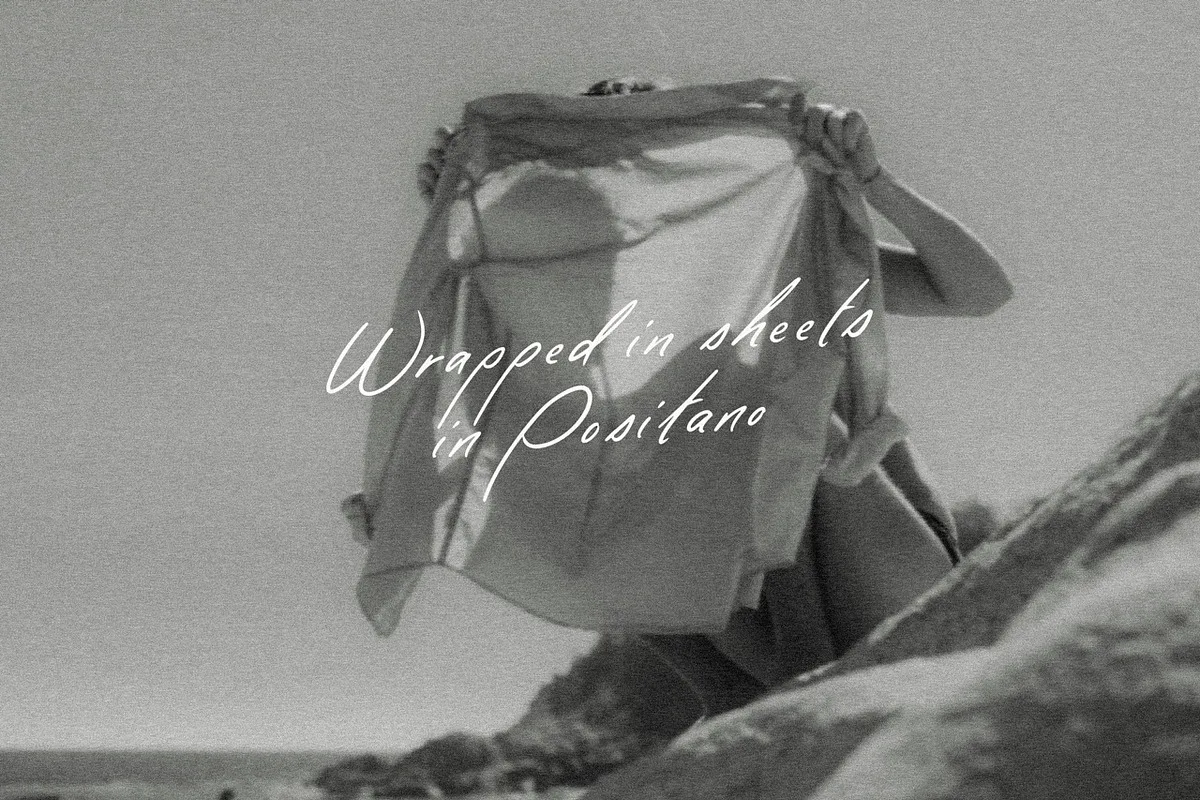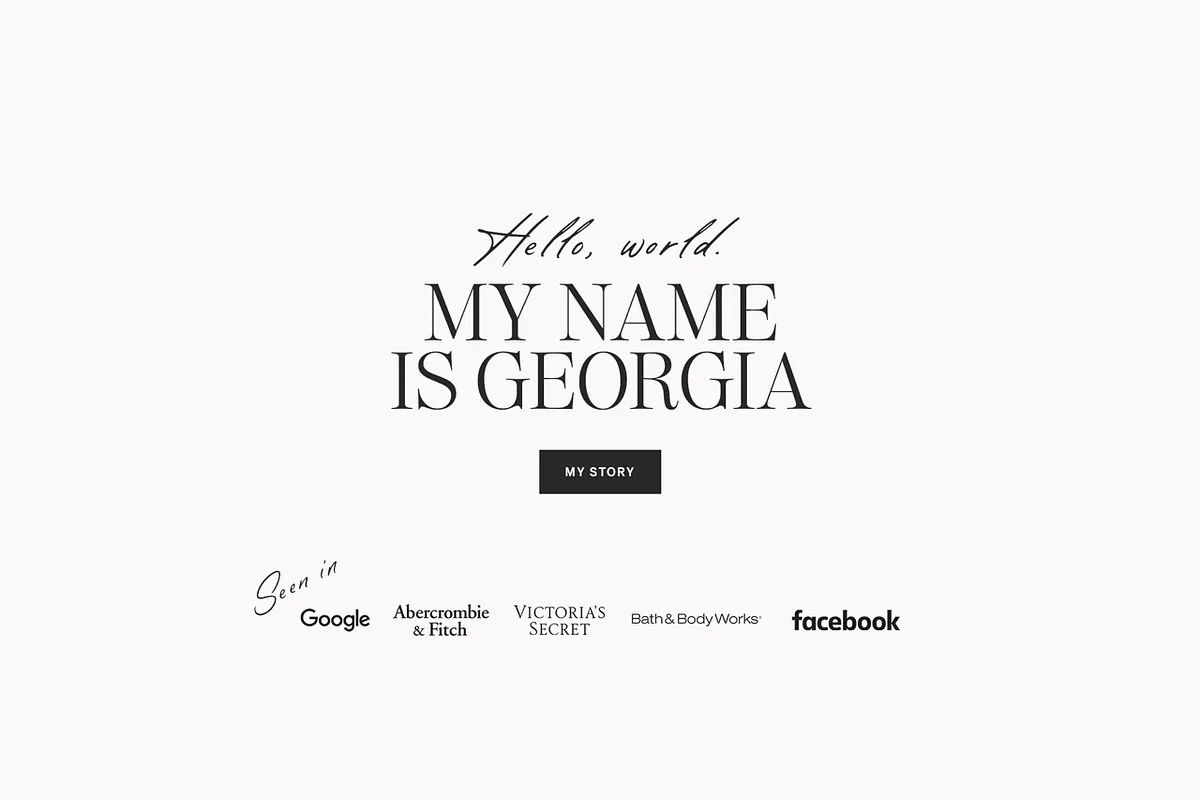
Paso Robles is a simple, yet elegant handwritten font that adds a sweet human touch to more elevated designs. With contextual alternates, letters automatically switch to avoid letter repeat patterns (especially common with handwritten fonts!).
- Uppercase, Lowercase, & 0-9 contextual alternates
- Numbers & Punctuation
- Western & Central European language support
Paso Robles Font: Handwritten Script